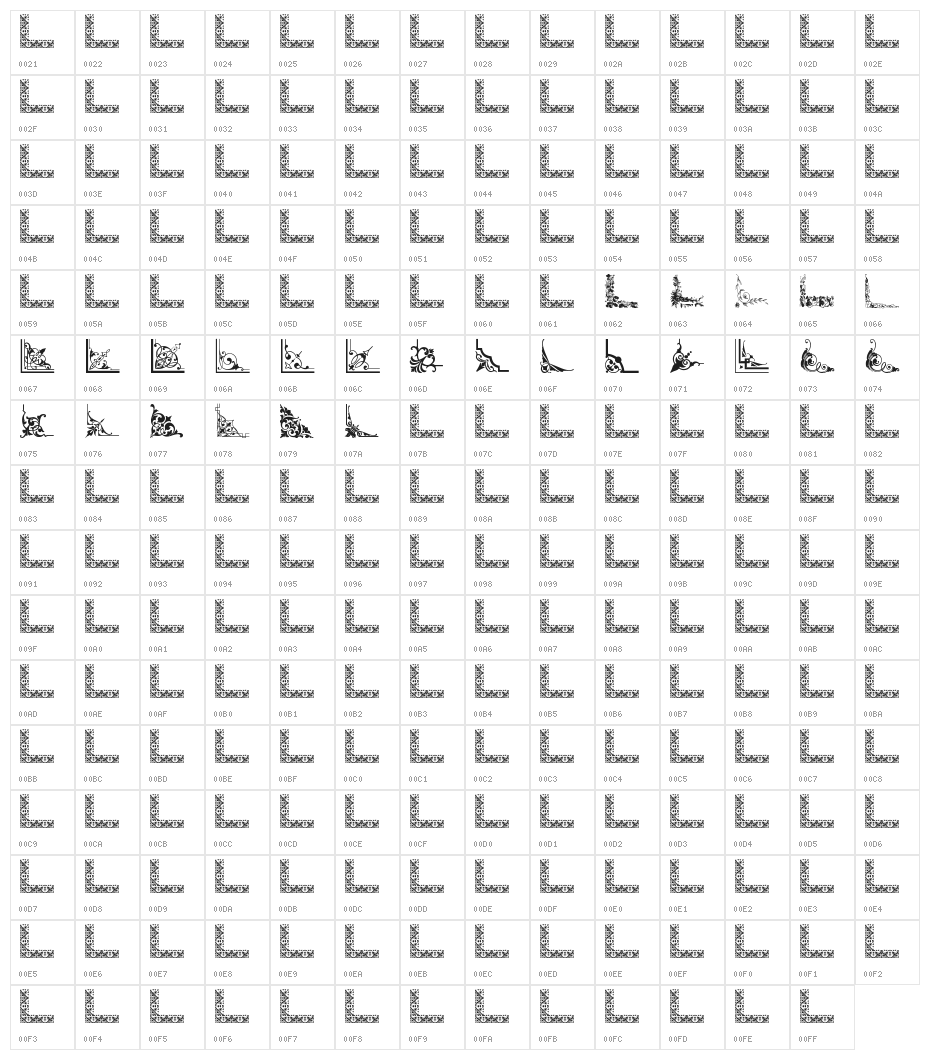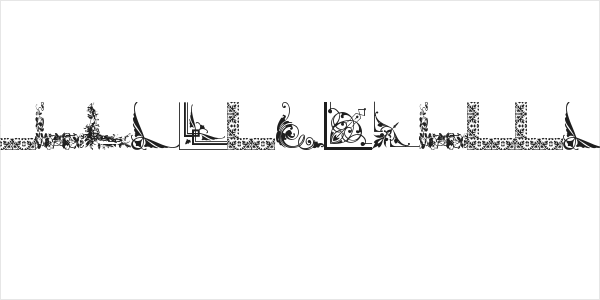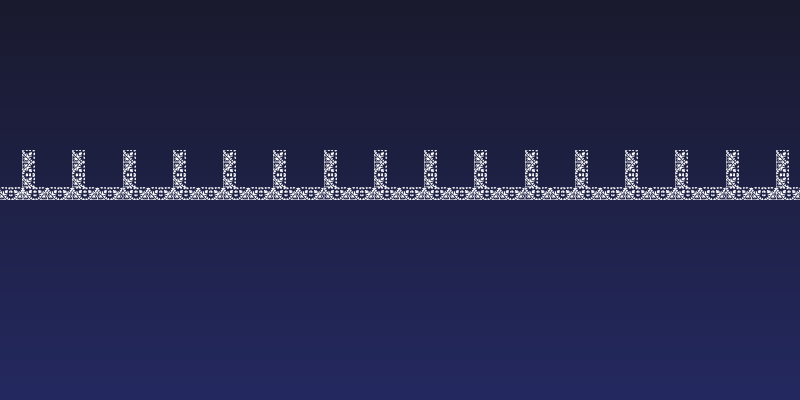
Vintage Decorative Corners 33 Font
Vintage Decorative Corners 33 Description
A highly decorative set of vintage corner ornaments featuring intricate floral and geometric patterns, designed to mimic ornamental borders and embellishments rather than traditional alphanumeric characters.
Overall StyleVintage, Decorative
Use CaseBorders, Frames, Decorative accents
Proposed ProjectsInvitations, certificates, book covers, decorative frames, scrapbooking, vintage-themed designs.